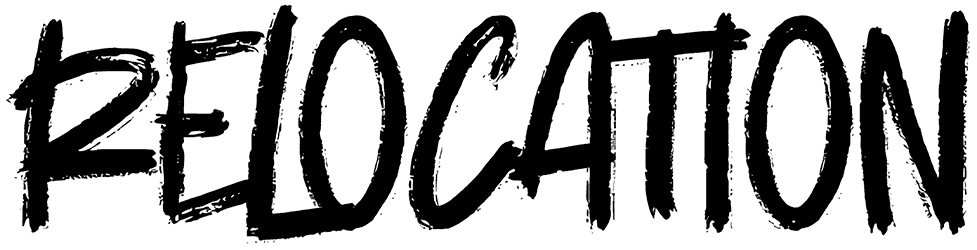
Relocation Font
Would you like to have a modern and casual visual for your new design that can convey an urban and cool vibe to your followers? This brush font could be able to catch your eye. The characters are realistic and unique, and it offers two sets of caps, but lowercase letters and some numbers are not available. Yet you can count on the Relocation font to create memorable layouts, such as a skateboard design.